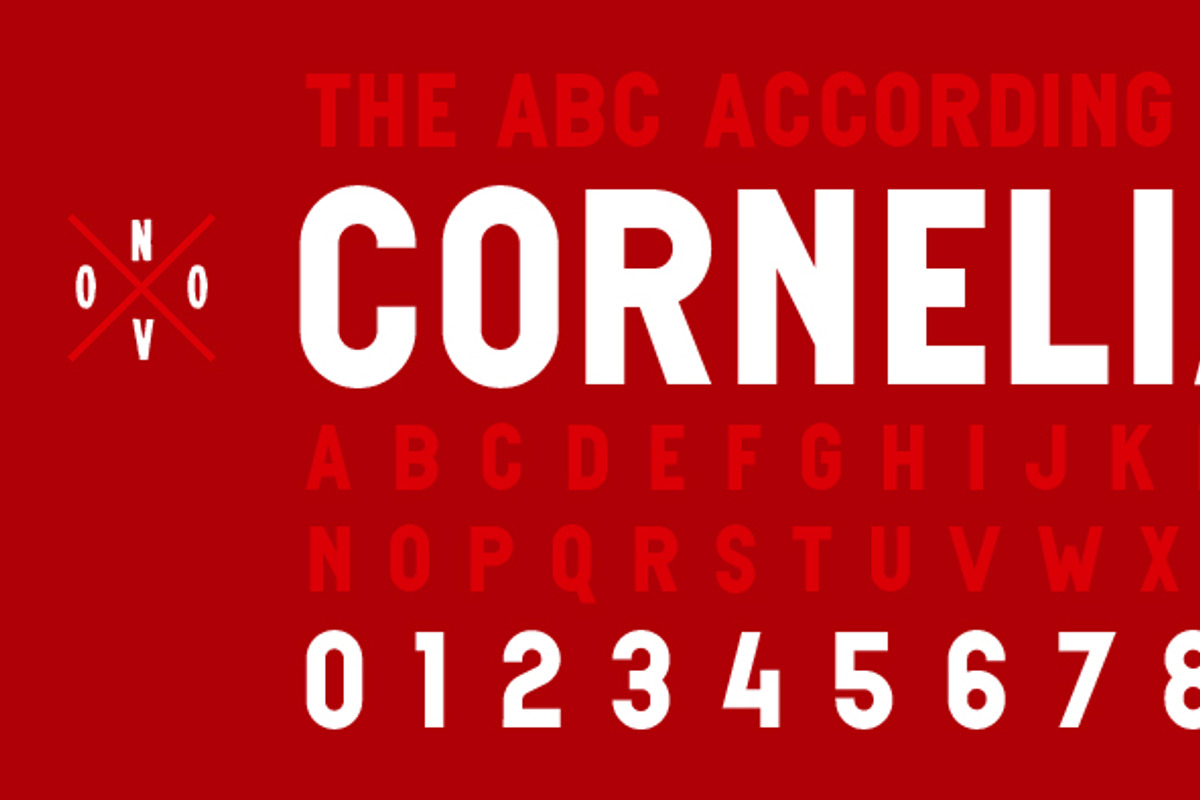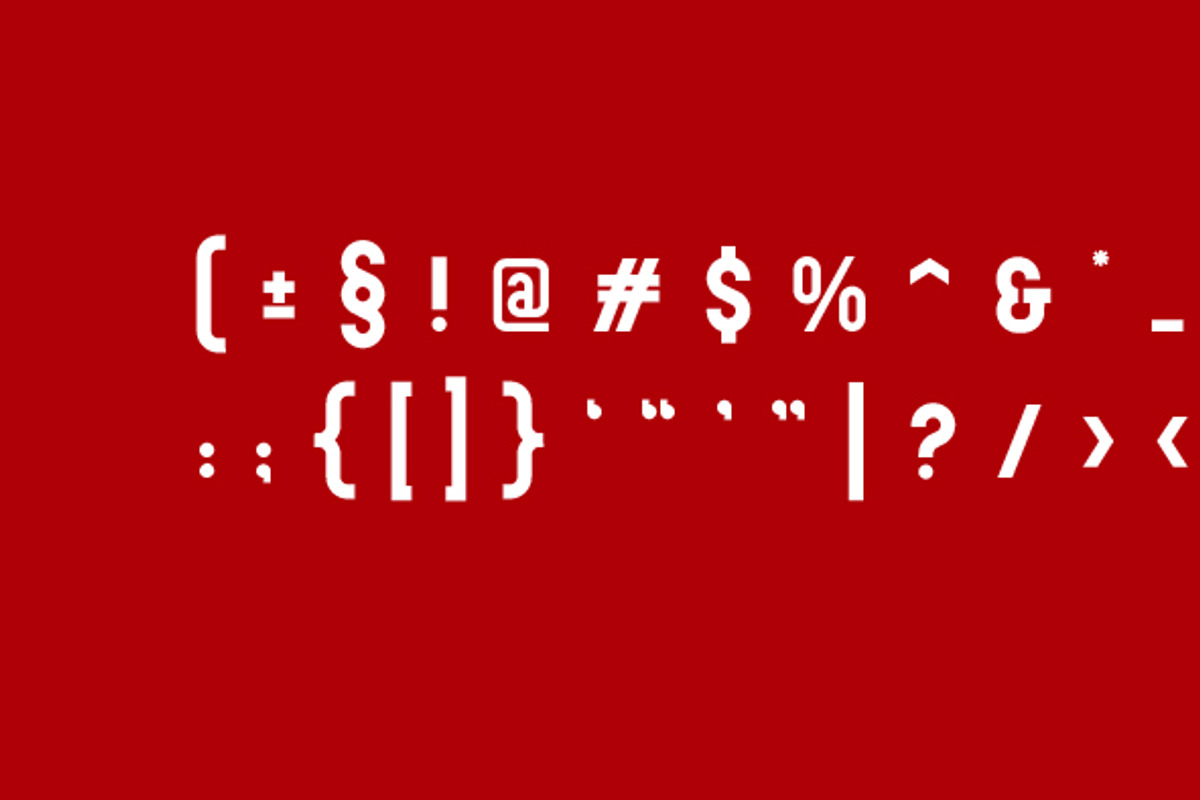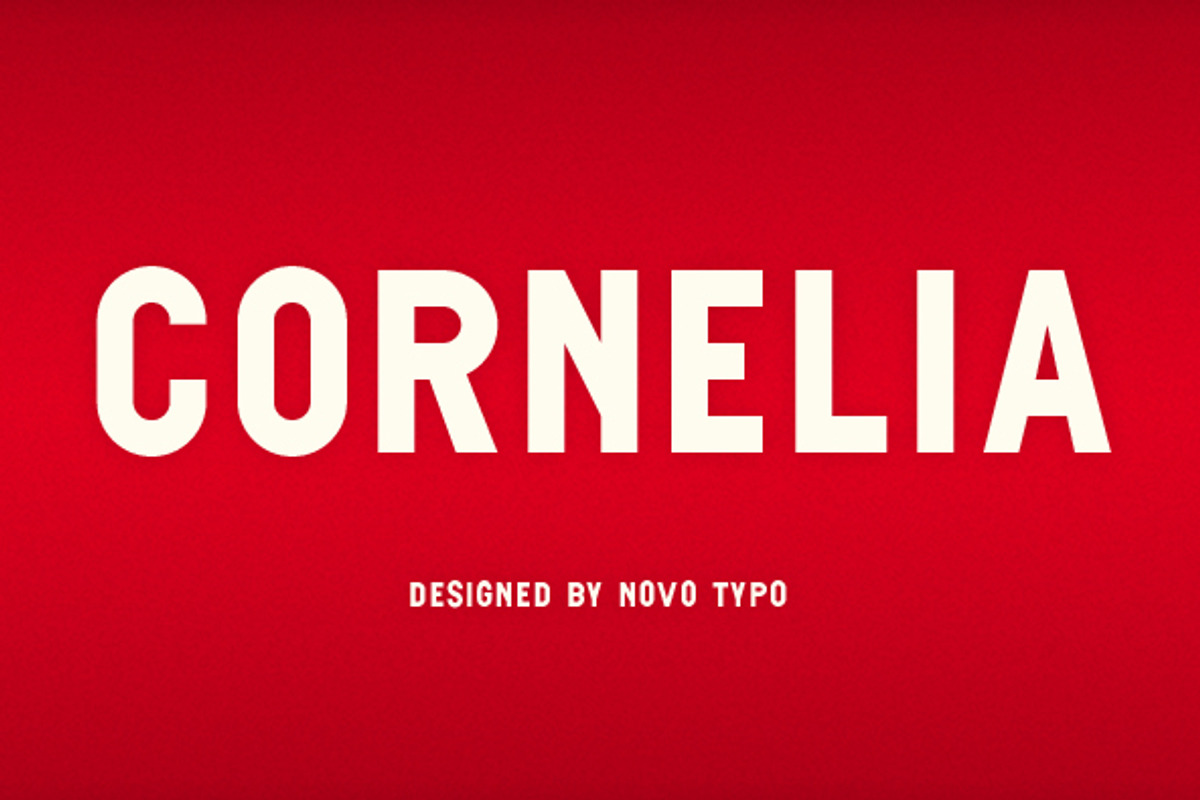
NT Cornelia
Cornelia is a simple constructed uppercase font designed for display use. Cornelia is perfect for designing sophisticated logo's, fashionable headings or other beautiful display typography. Cornelia is designed by Novo Typo, (typo)graphic designers from Amsterdam, The Netherlands.